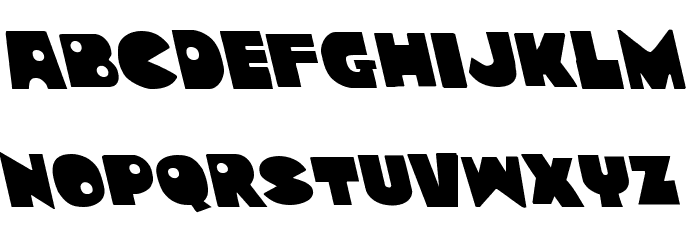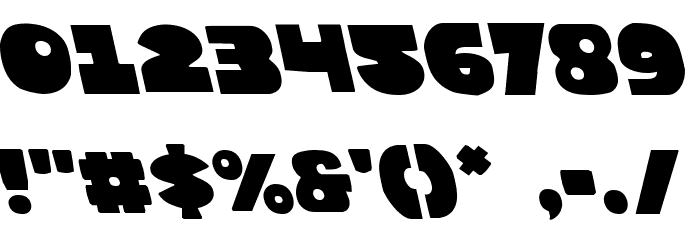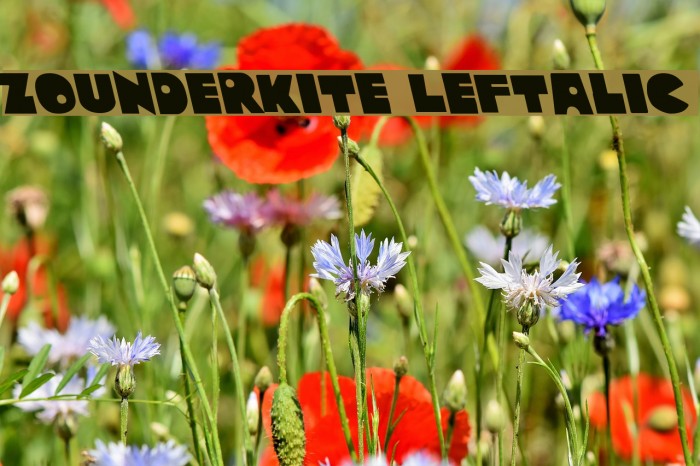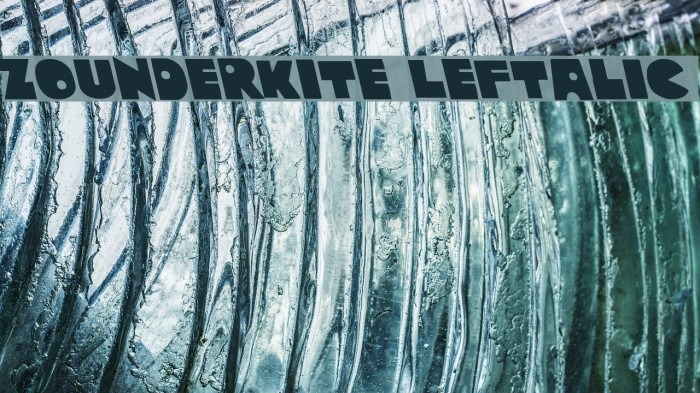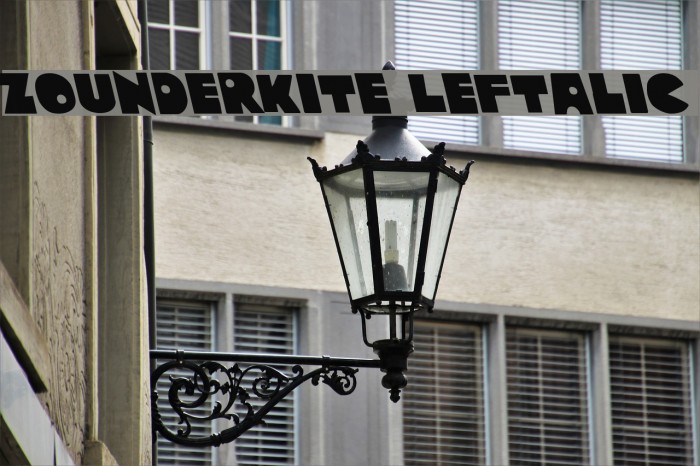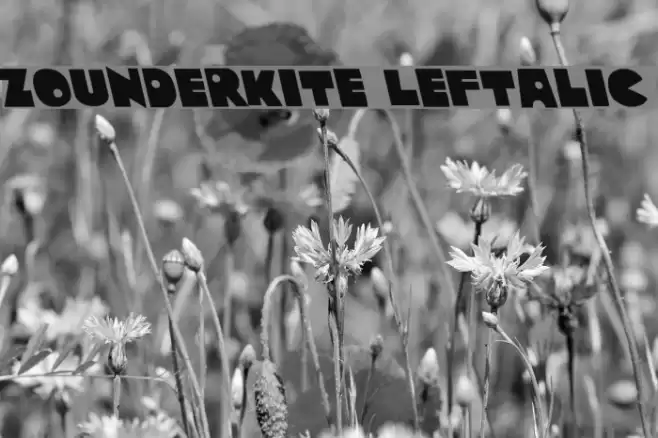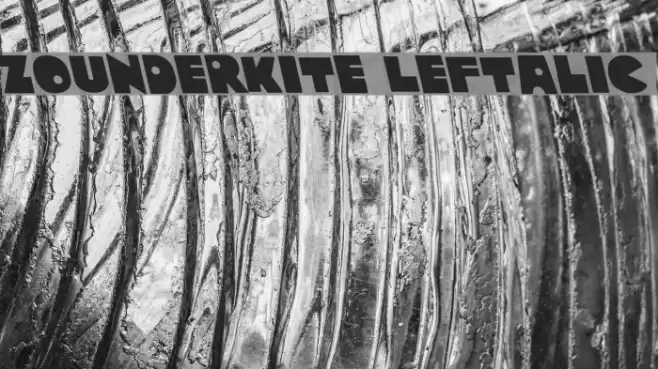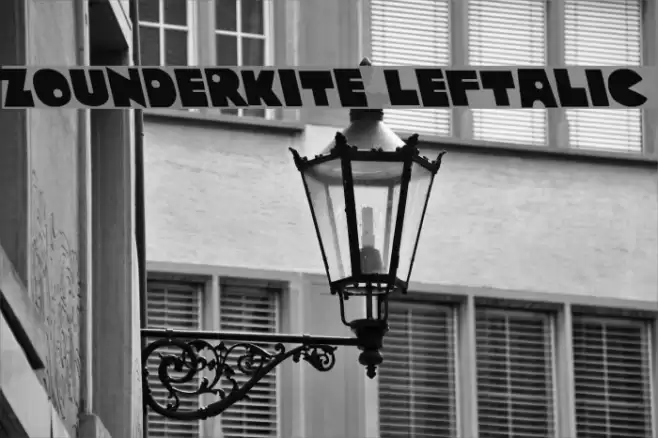
Zounderkite Leftalic Font
This font features bold, geometric shapes with a playful and dynamic style. The characters are heavily stylized, with exaggerated angles and a strong presence. The uppercase and lowercase letters maintain a consistent weight, creating a cohesive look. The numerals and special characters follow the same bold and angular design, making them stand out. The font's unique style makes it ideal for eye-catching designs and creative projects.
A bold, geometric font with playful, exaggerated angles.
- Proposed Projects: Ideal for posters, logos, and branding projects that require a bold and dynamic aesthetic.